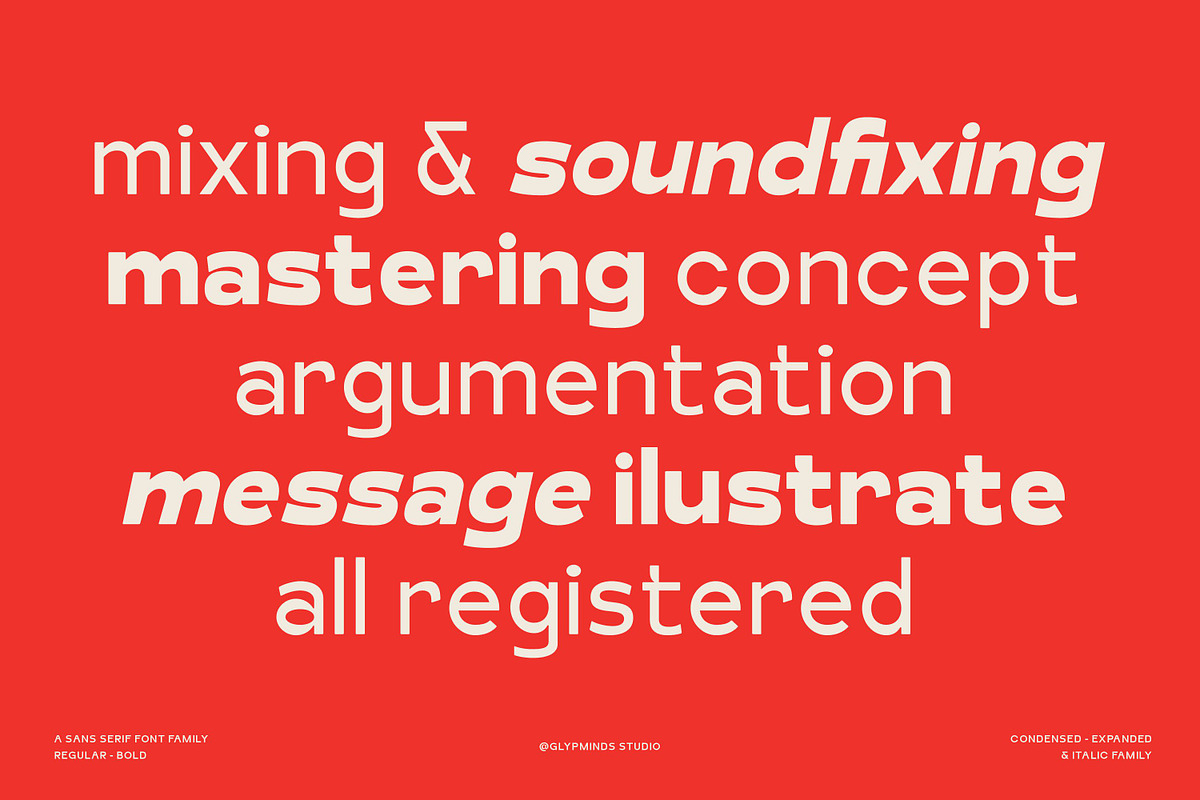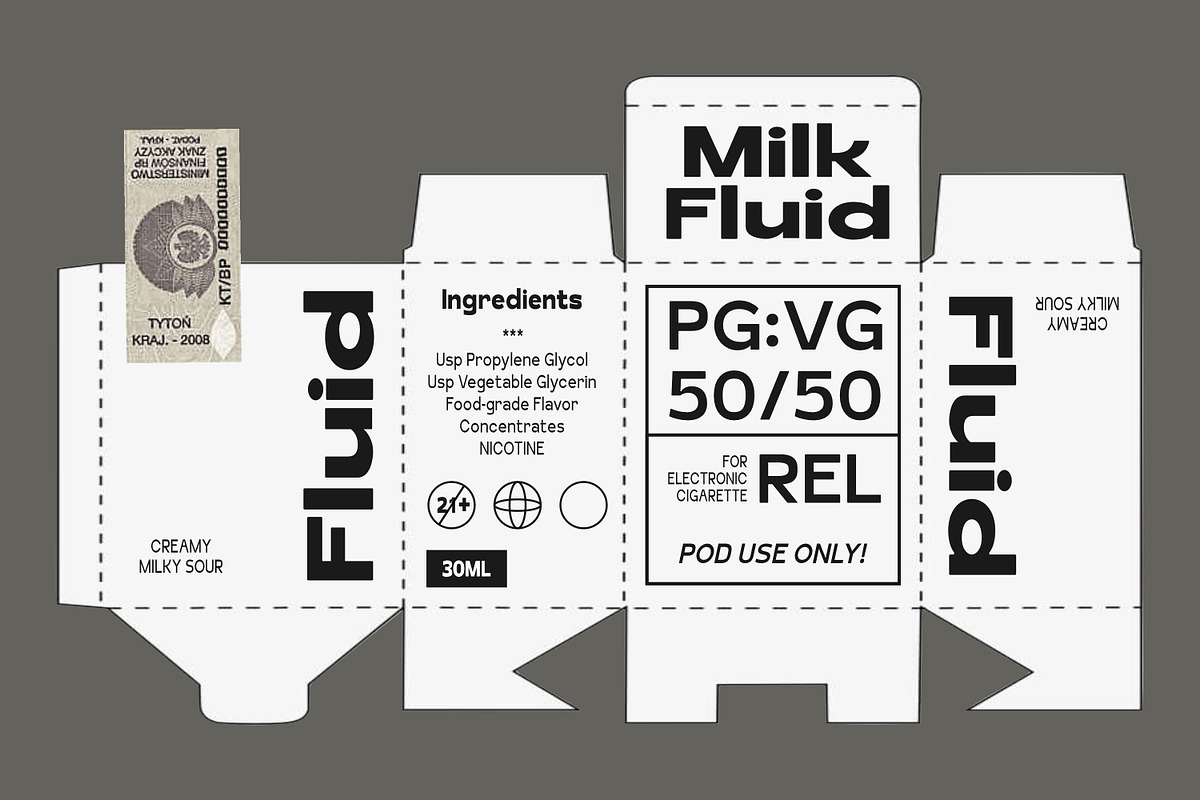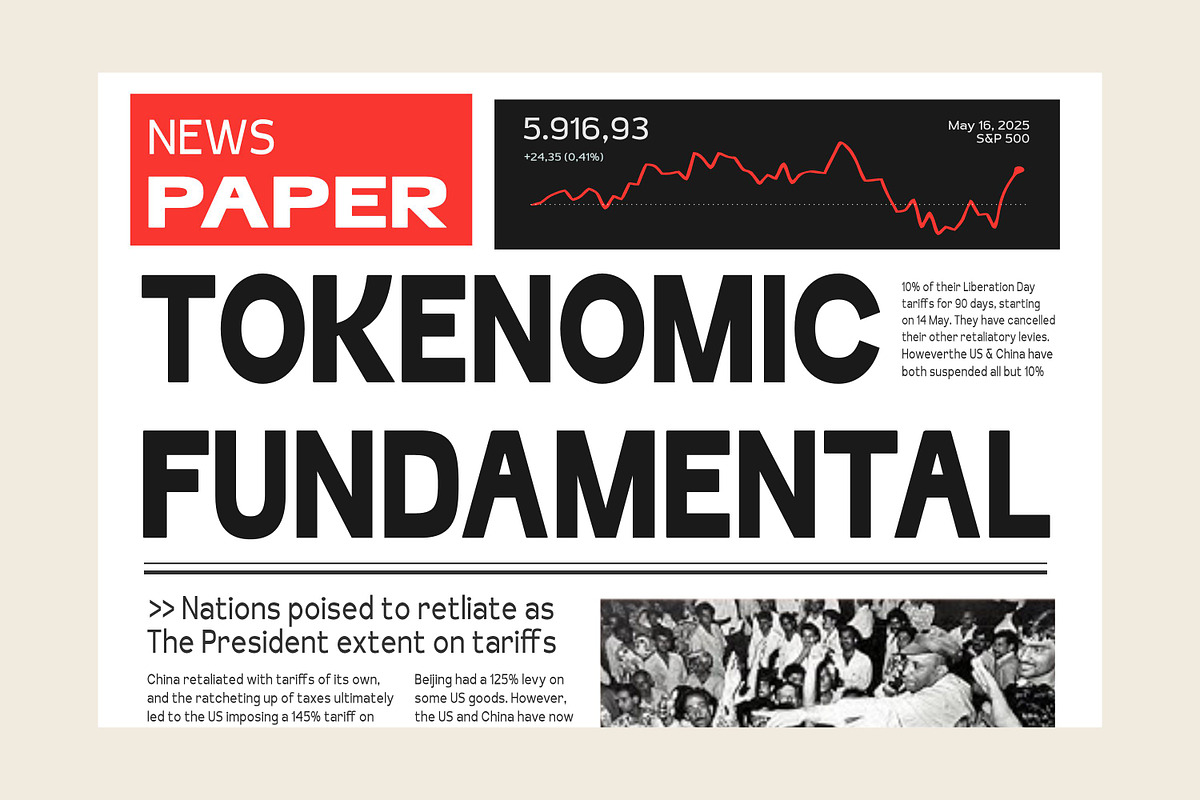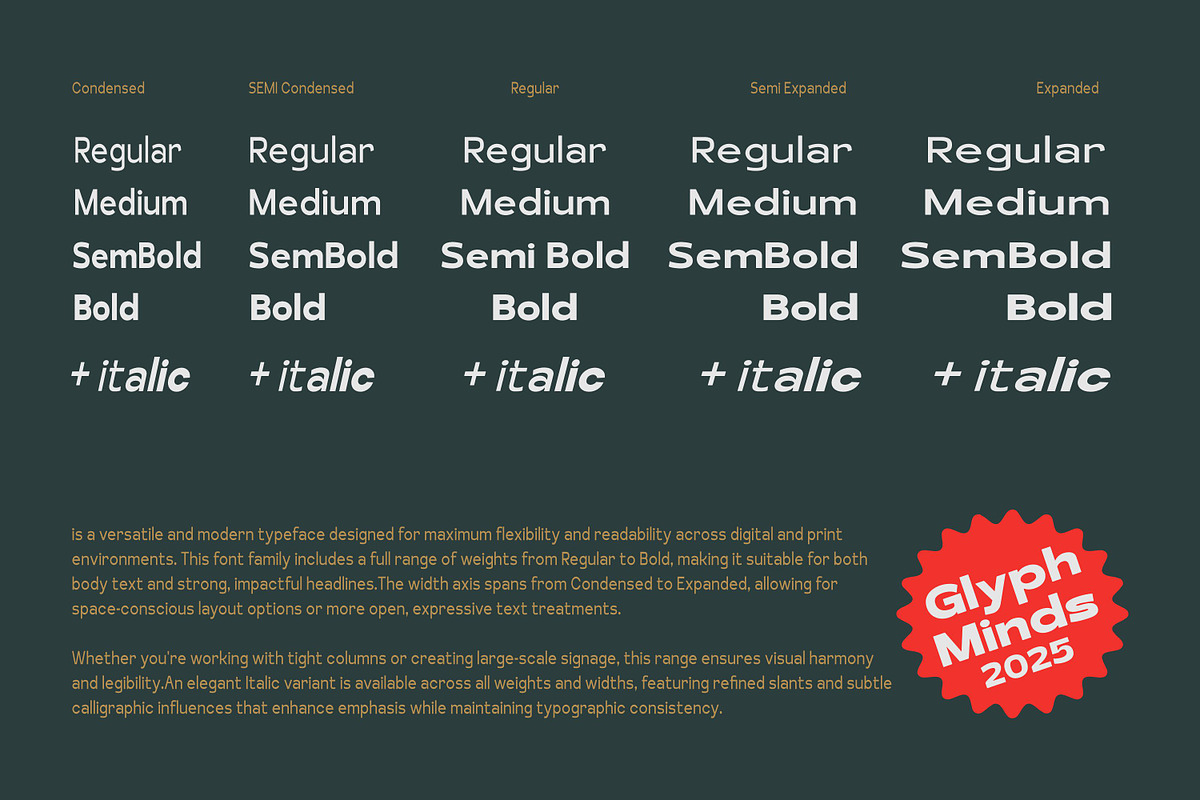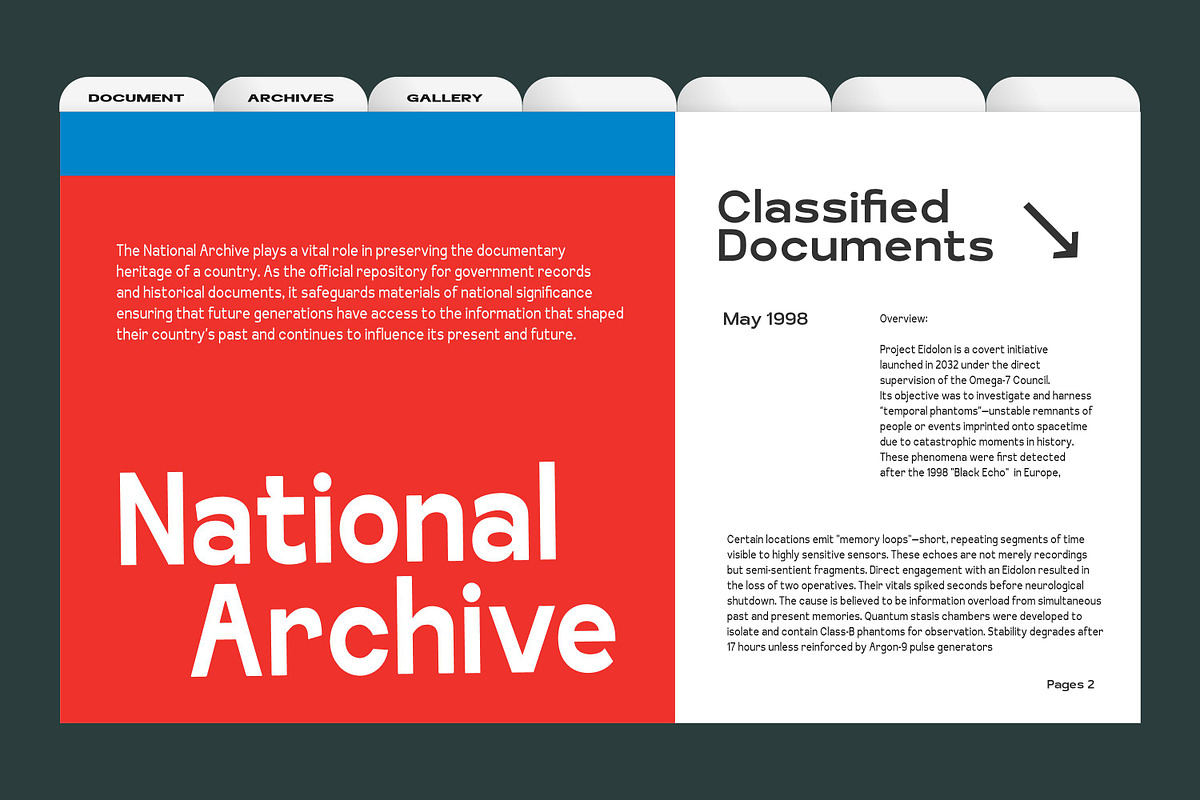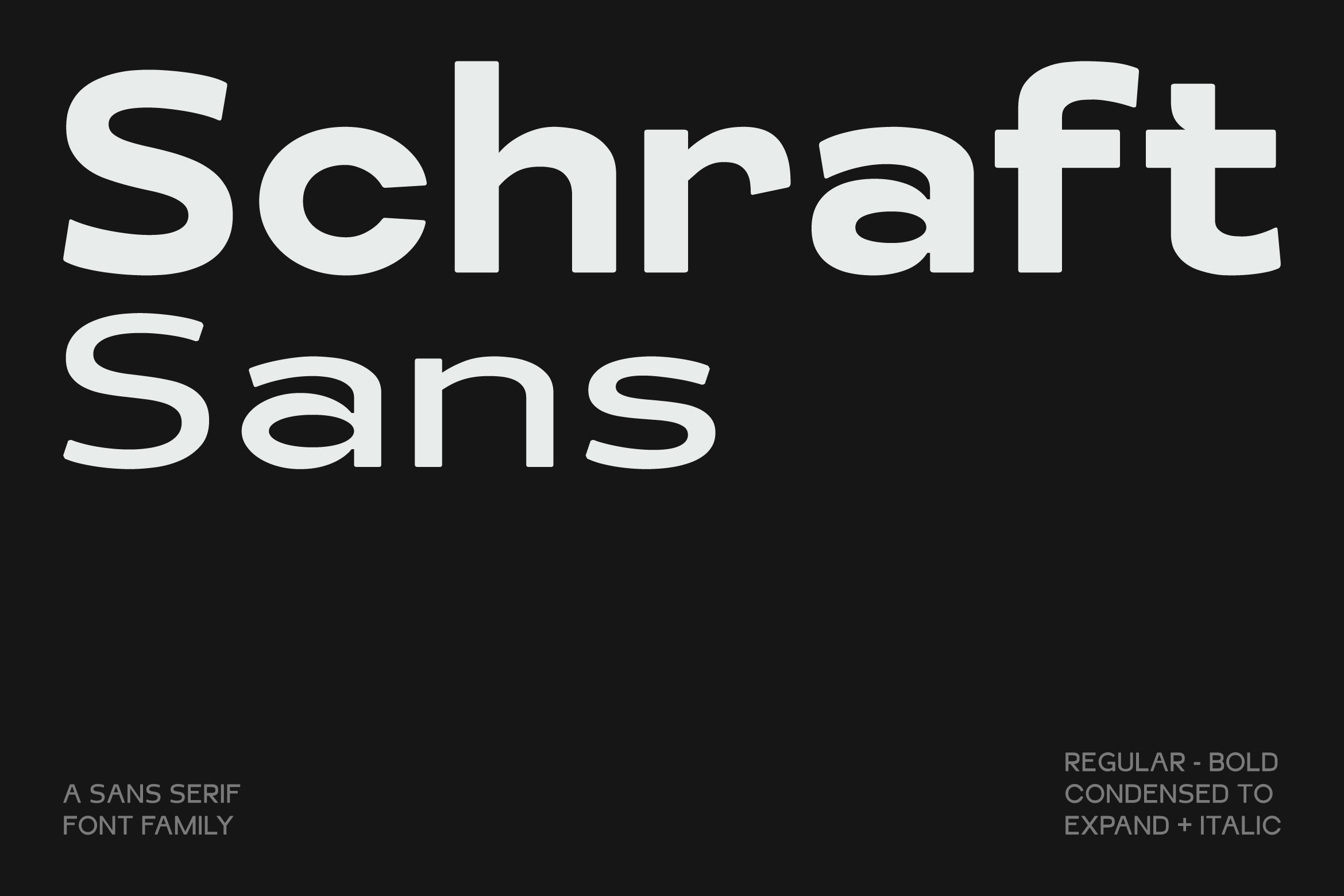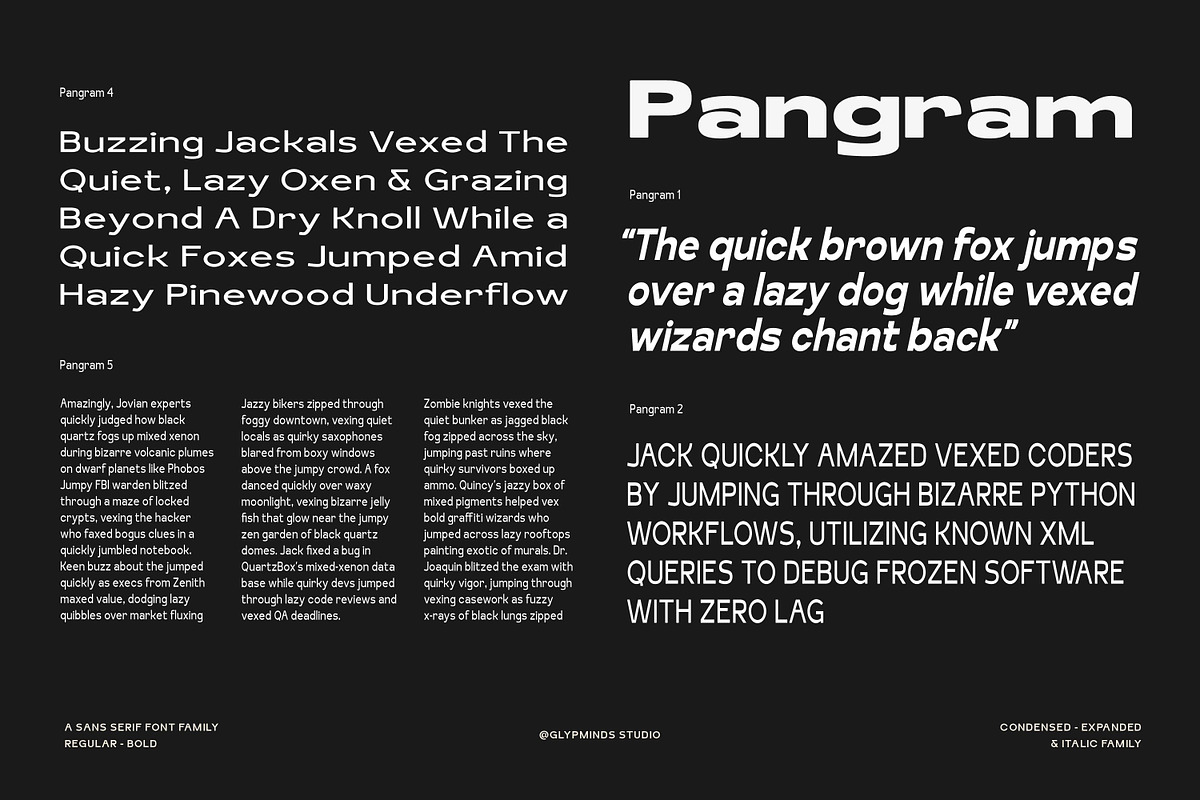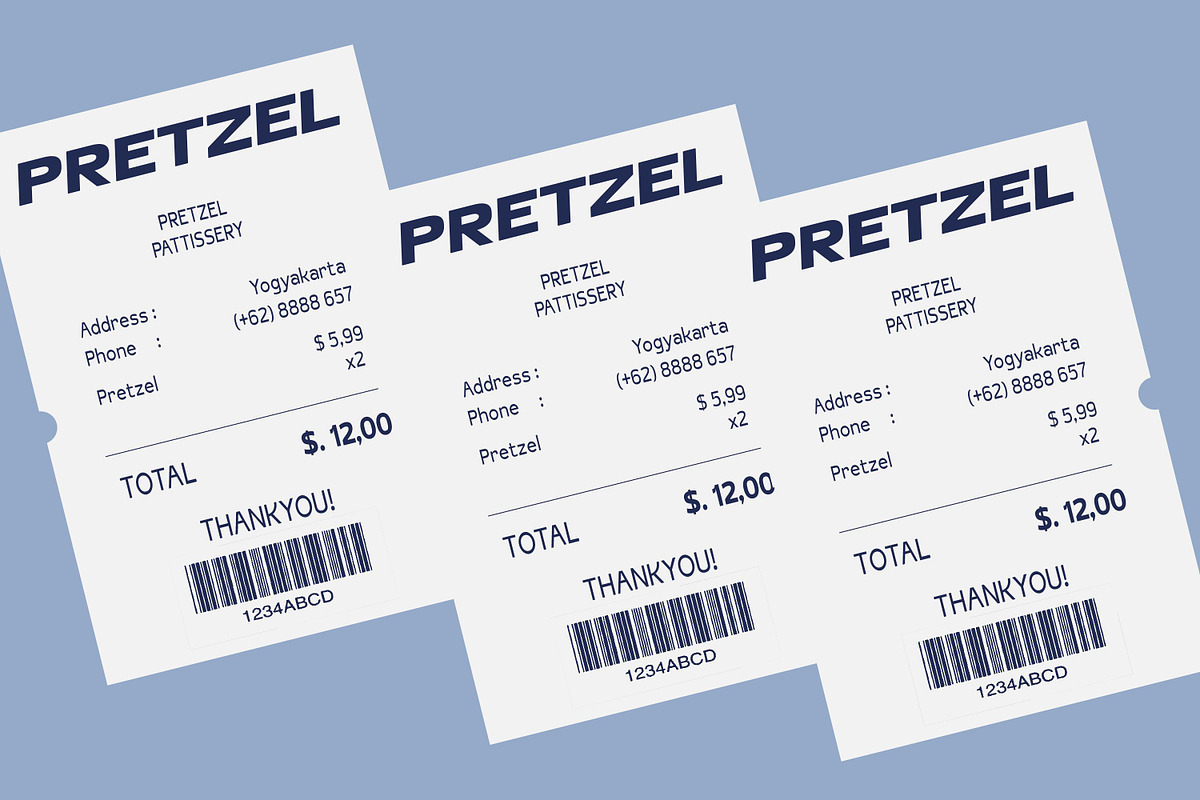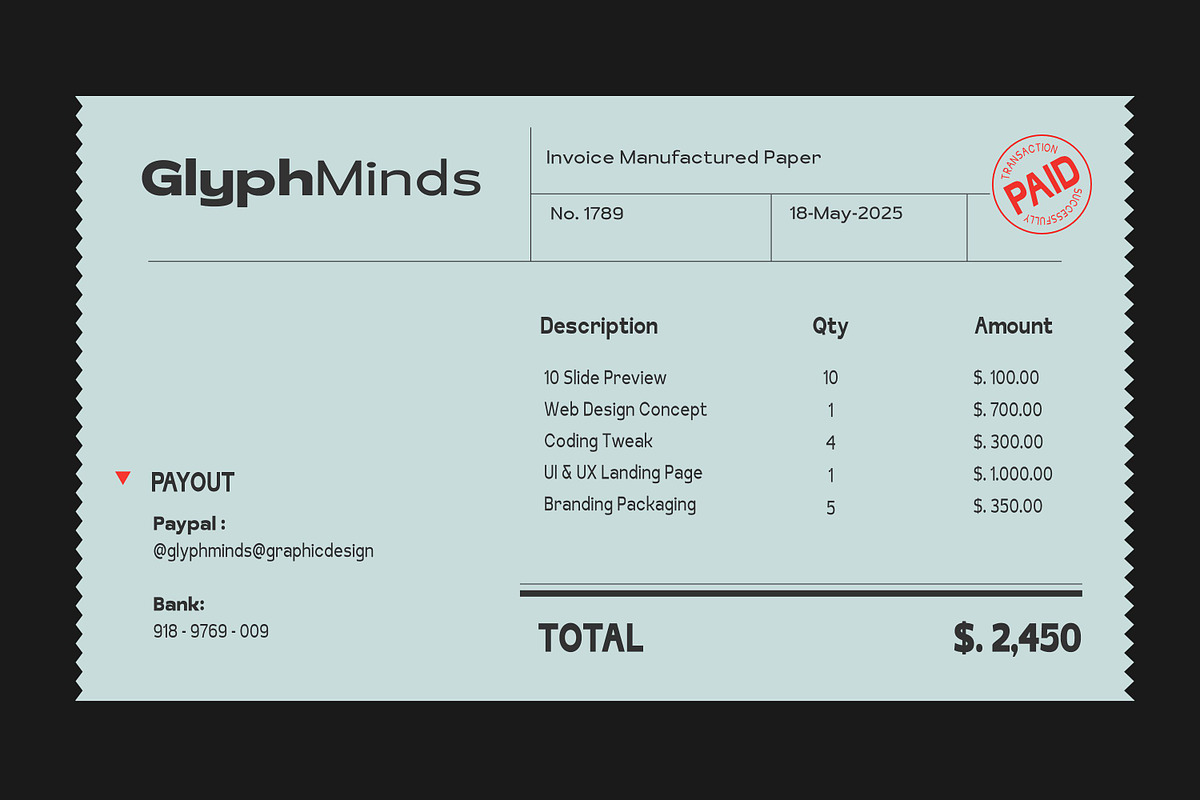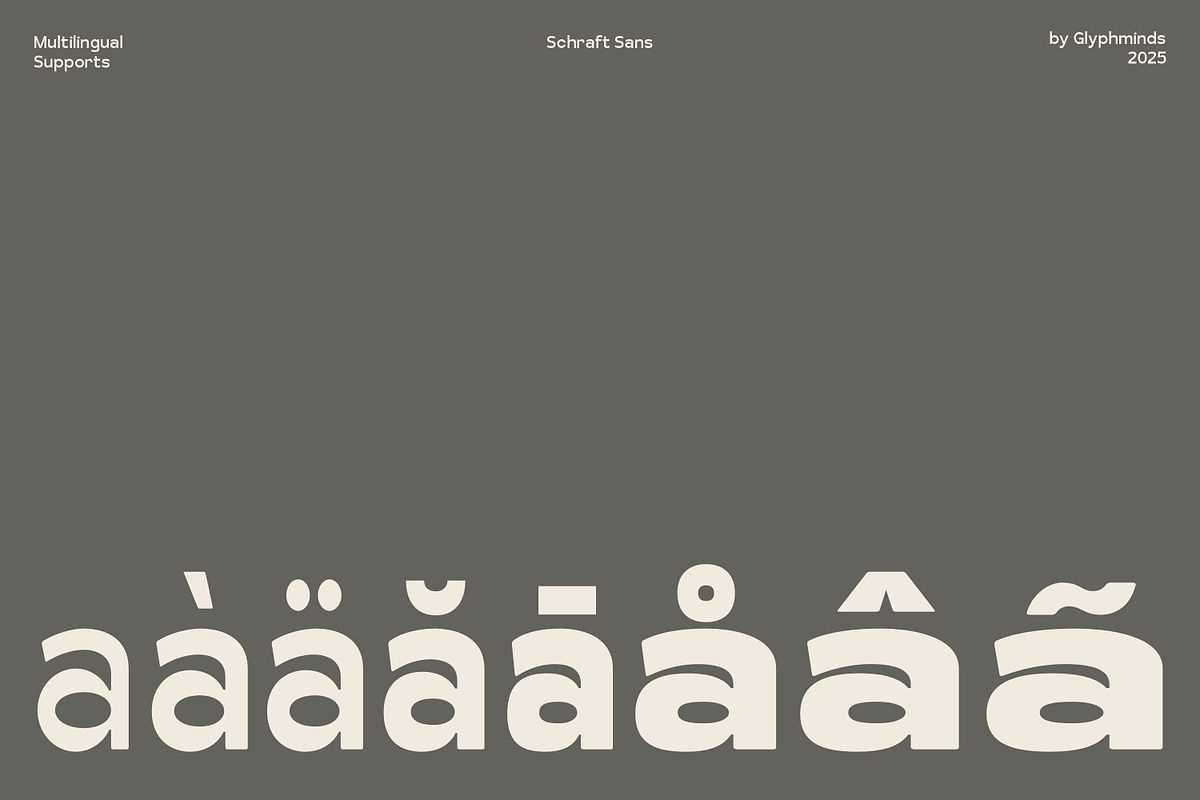
Schraft Sans Font Family
Schraft Sans is a contemporary sans serif font family designed for clarity, flexibility, and modern appeal. With its clean geometric structure, it’s ideal for everything from bold headlines and logos to user interfaces and editorial layouts.
This family includes a full range of weights and widths — Regular to Bold, Condensed to Expanded, and Italic styles, giving you total control over your typography. Whether you’re crafting a sleek brand identity or designing a digital experience, Schraft Sans gives you the visual voice to stand out with style and precision.
Perfect for :
- Branding & identity
- UI/UX design
- Editorial & magazines
- Posters & packaging
- Web & mobile applications